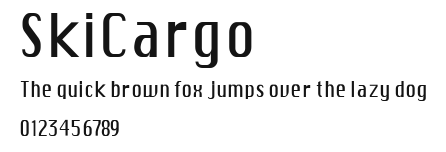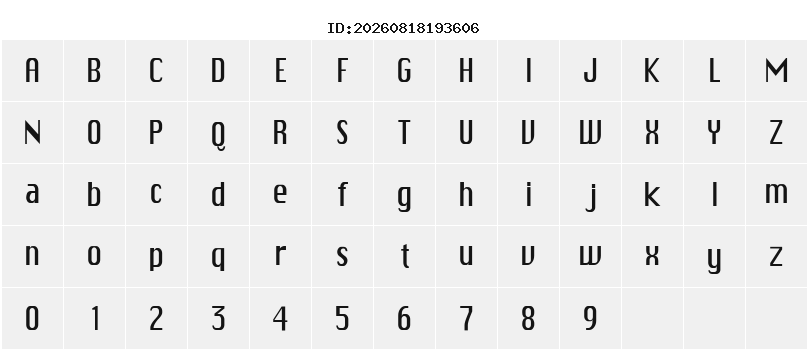
SkiCargo Preview
• Font Name: SkiCargo
• Full Font Name: SkiCargo
• Version: 1.0 2004-08-26
• Character Count: 247
About SkiCargo.ttf
SkiCargo.ttf is a modern, elegant sans-serif font designed for ultimate readability and visual harmony. Perfect for branding, headlines, web design, and print materials.